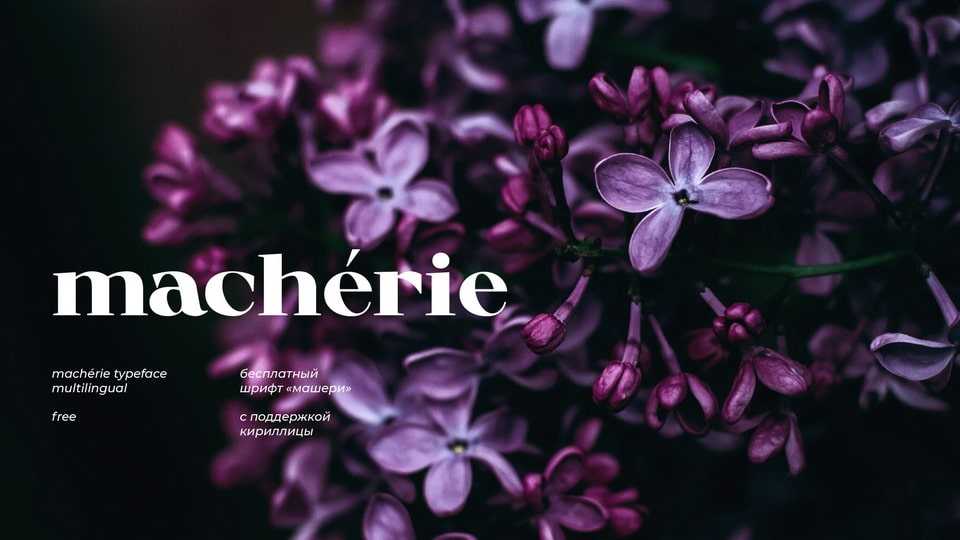
Download Machérie font, an accident antique typeface inspired by the dynamics of old-style fonts. Wide signs with high contrast of Machérie are supported by smooth transitions to sharp serifs.
Designer: Anastasia Ermolaeva